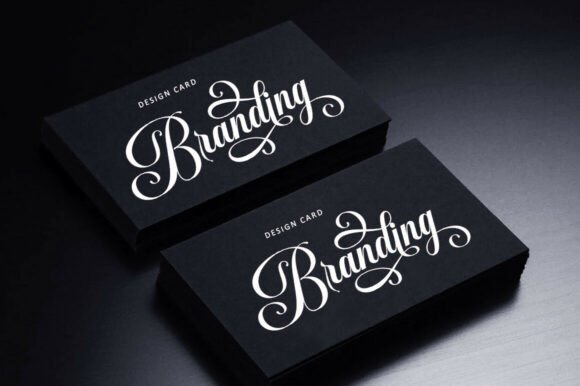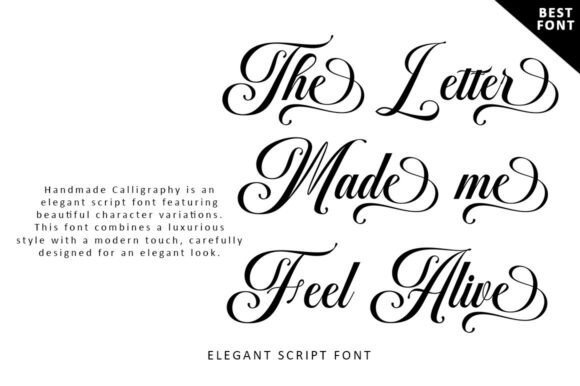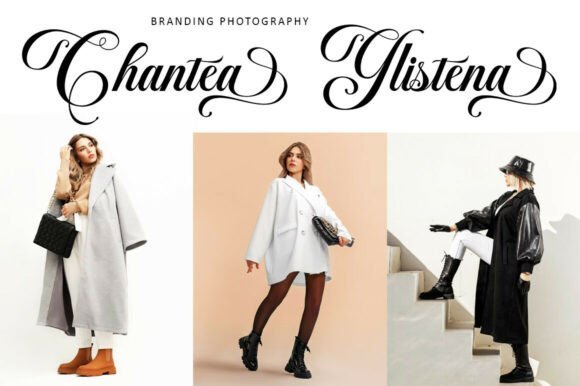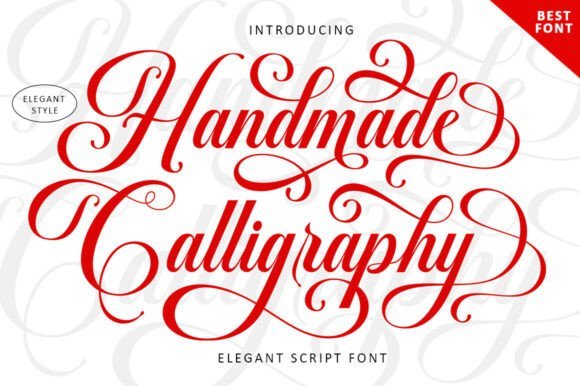
Handmade Calligraphy Font
Handmade Calligraphy Script is an elegant script font featuring beautiful character variations. This font combines a luxurious style with a modern touch, carefully designed for an elegant look.